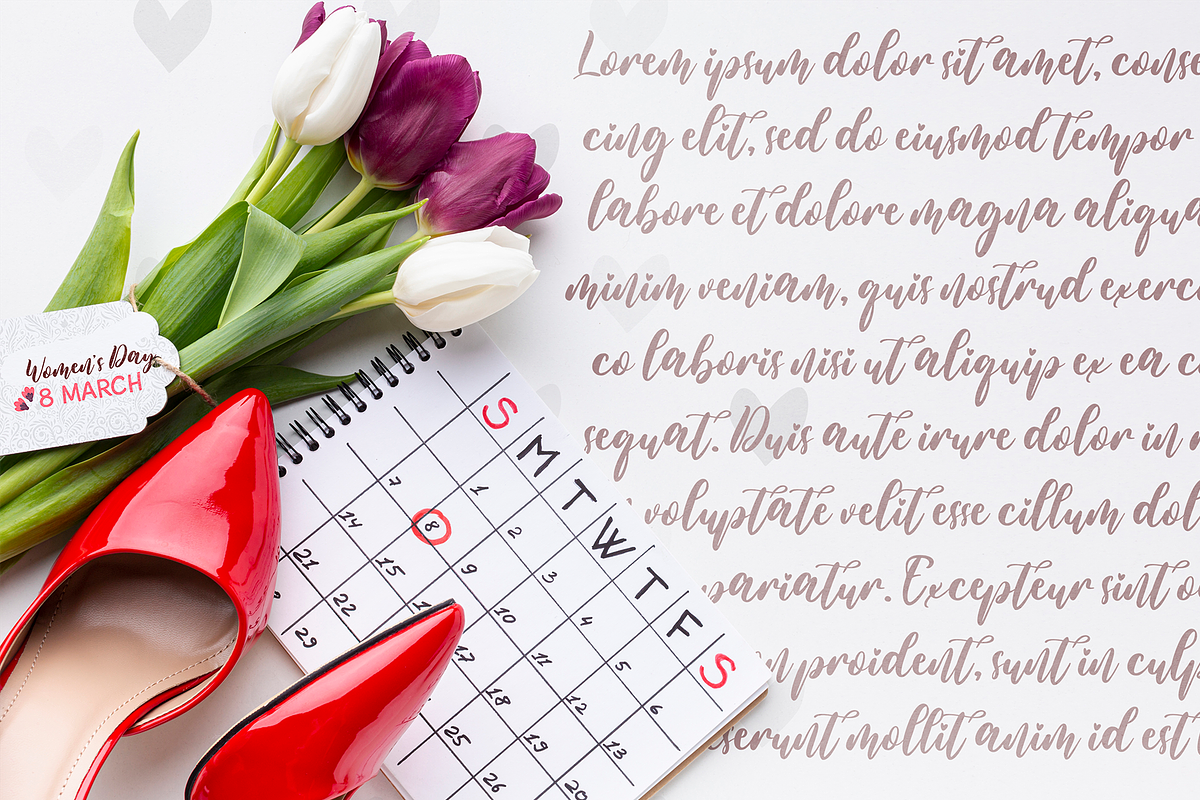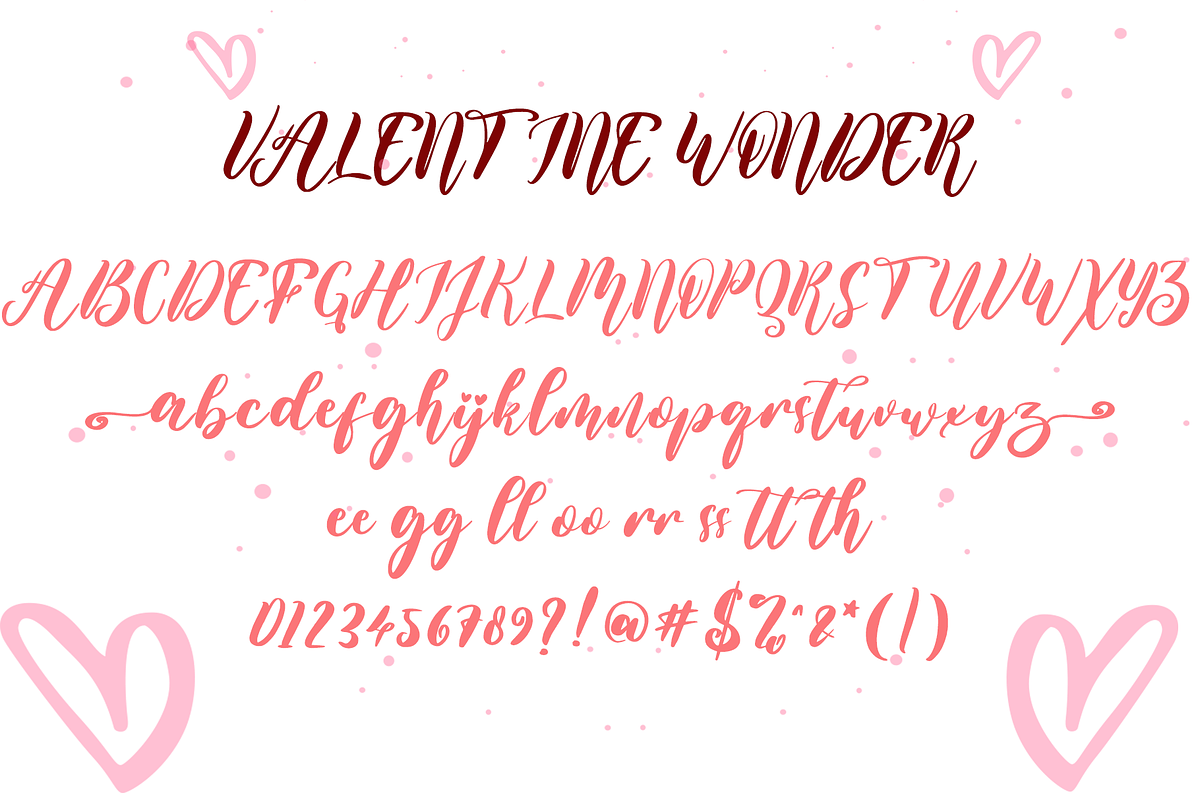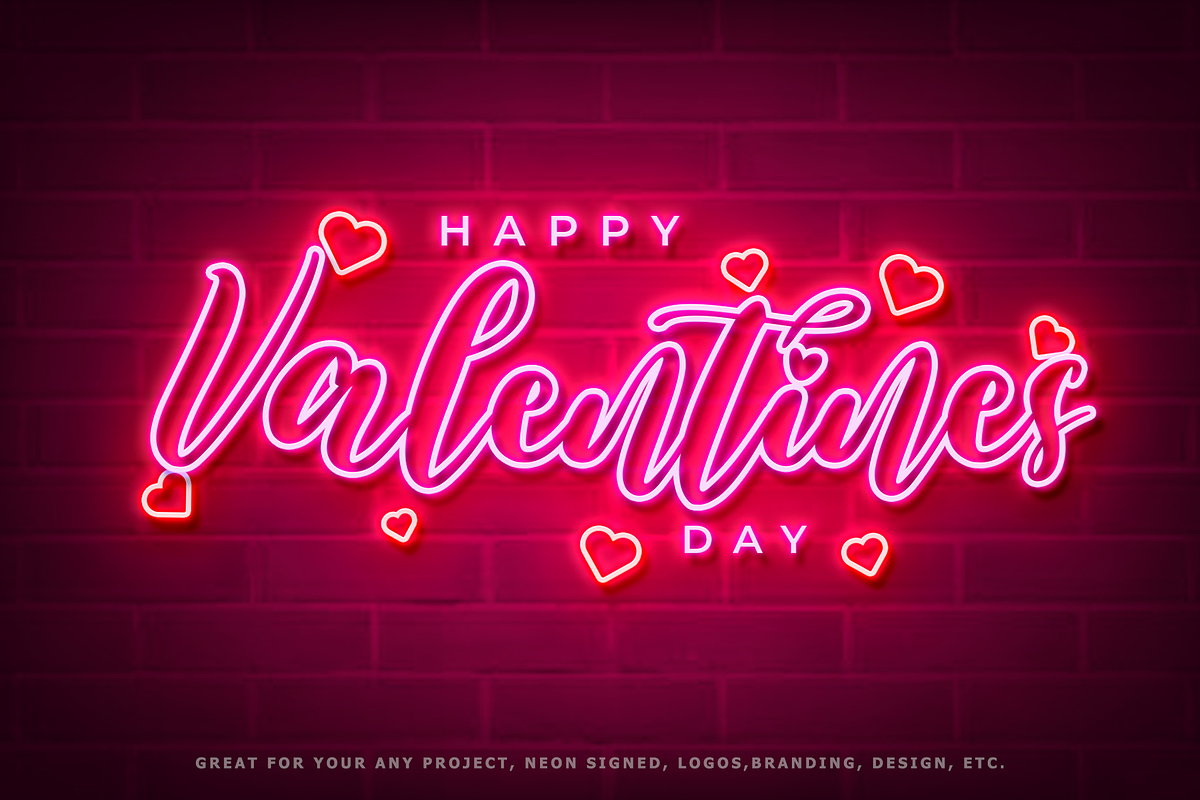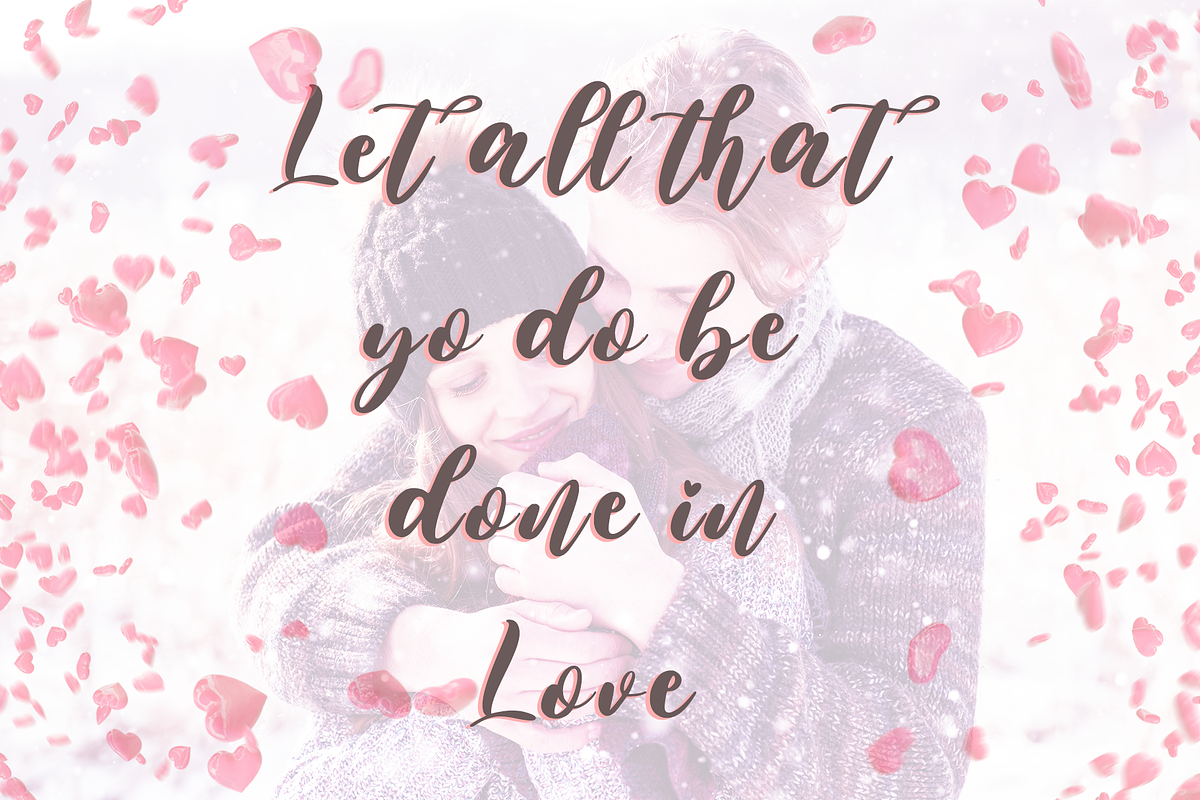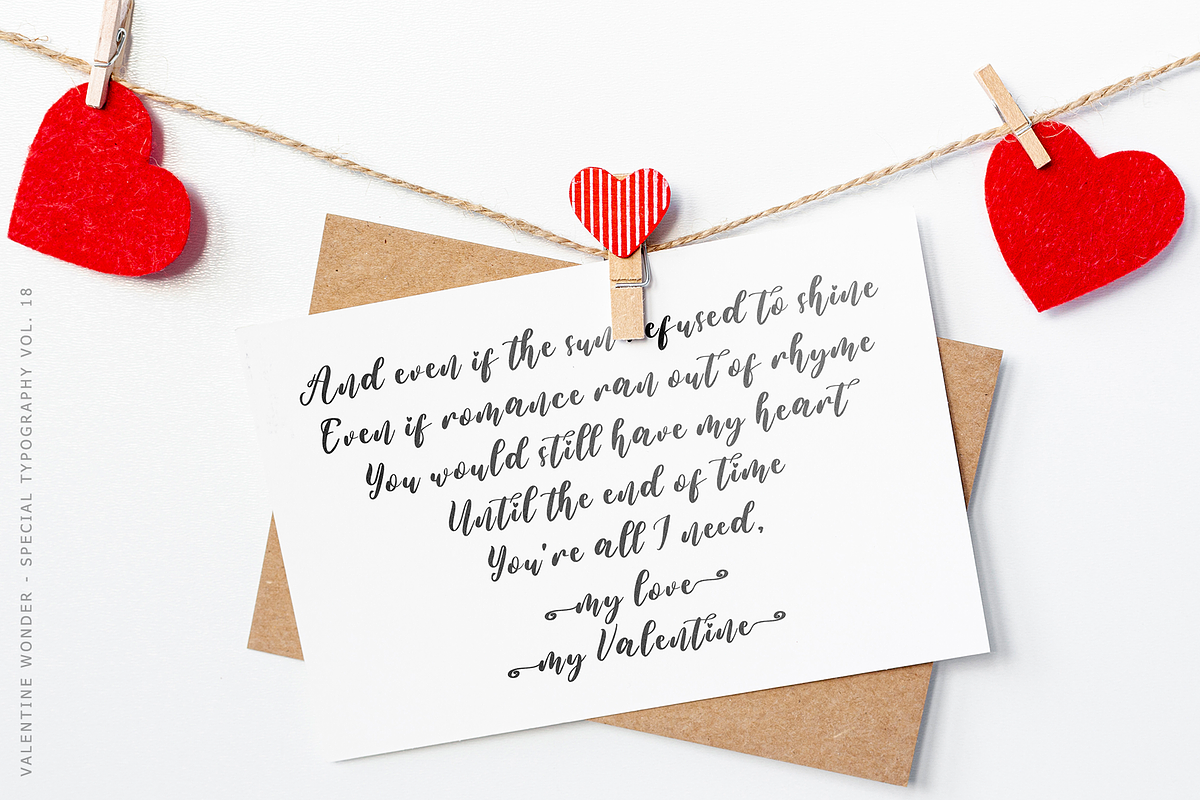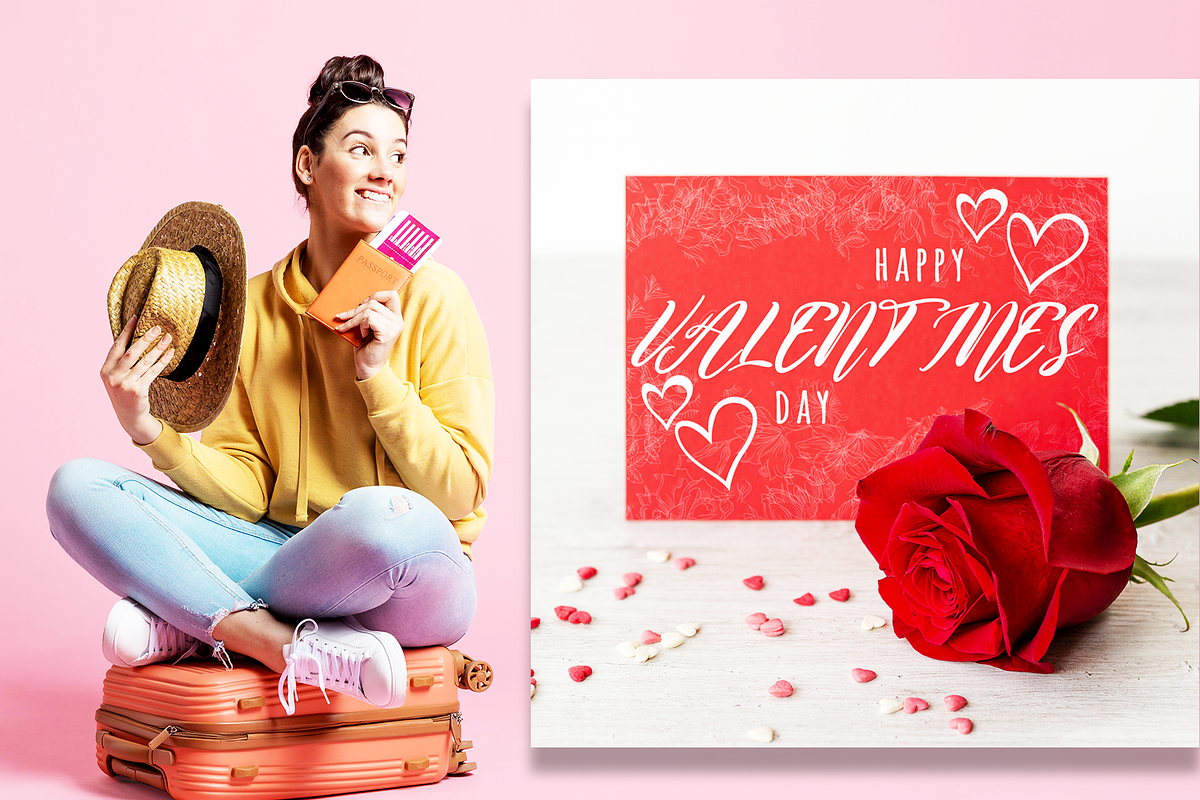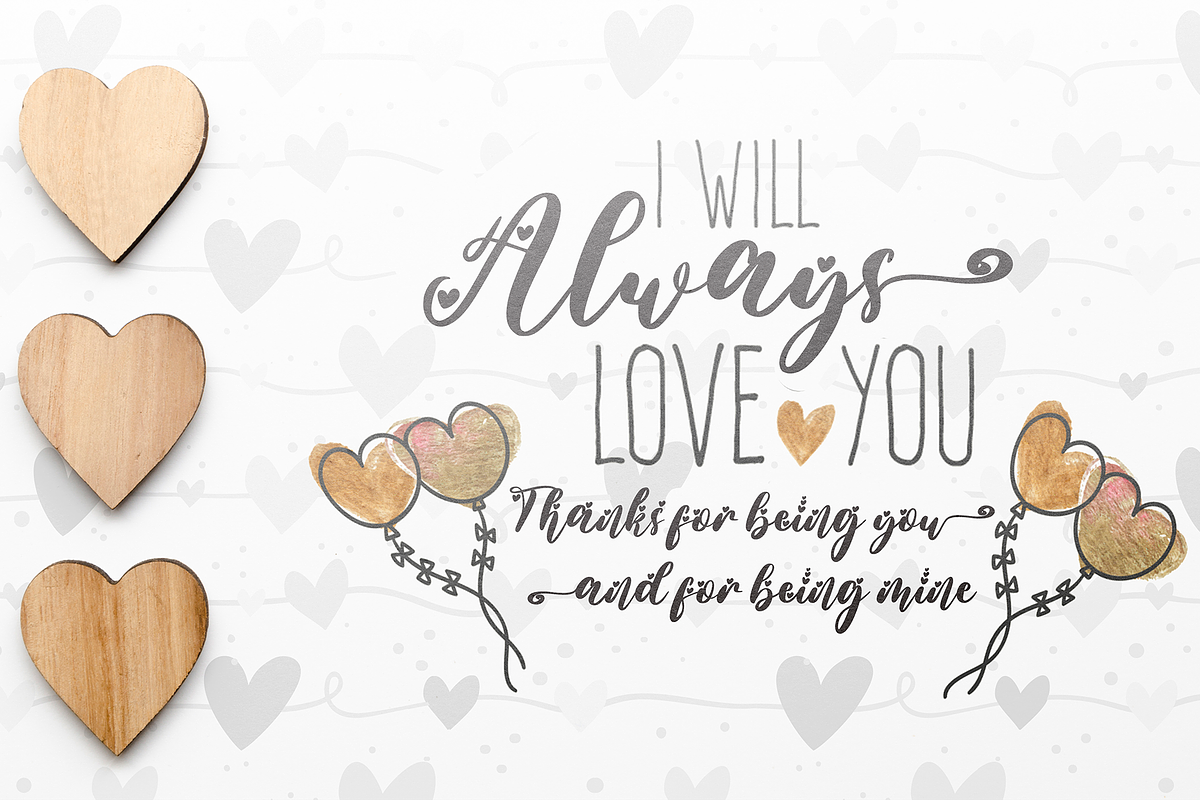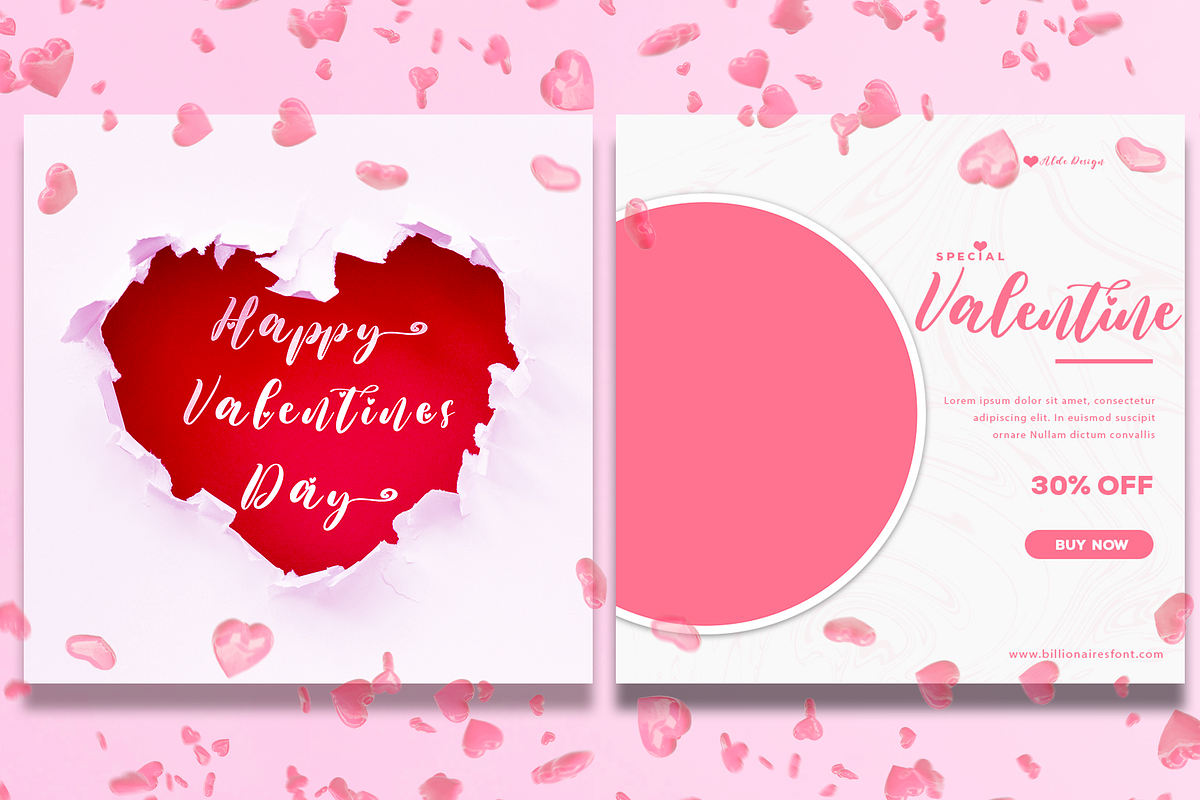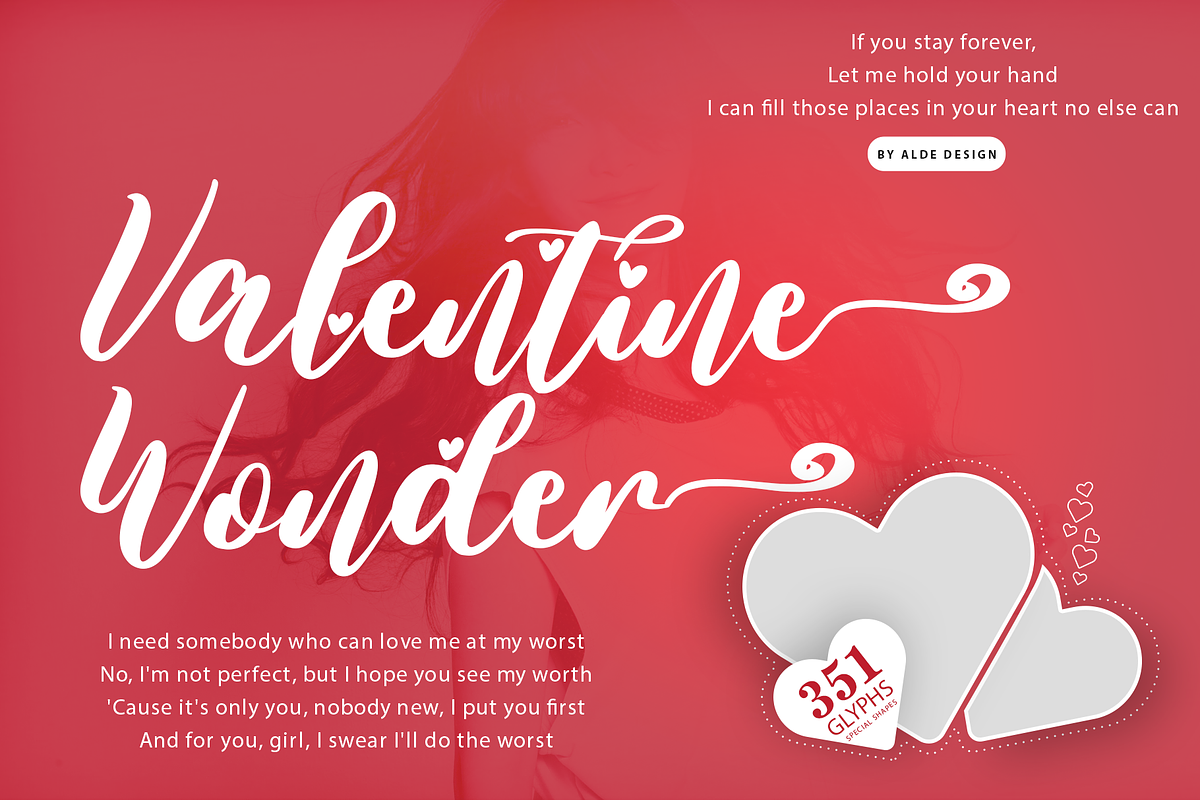
Valentine Wonder
Valentine Wonder is a festive and incredibly classy display font. It is ideal for any of your creations or your Valentine's design, so add them to your designs and bring them to life!
It has a feminine and elegant look which is great for logos, invitations, and blogs, but can also be used to make a striking headline.